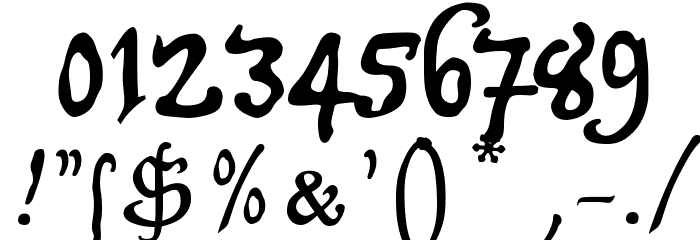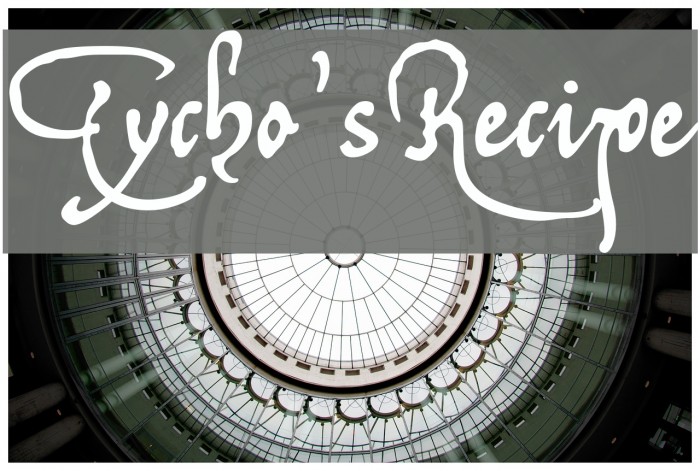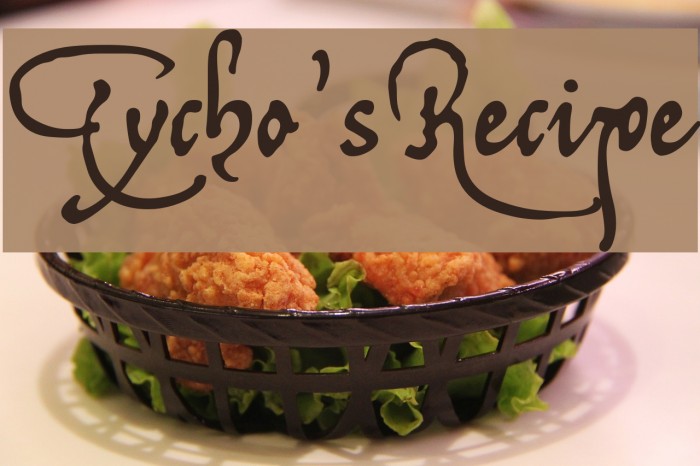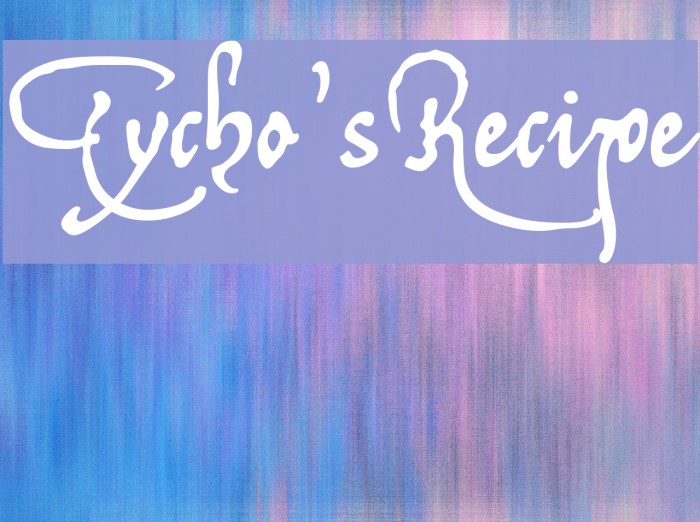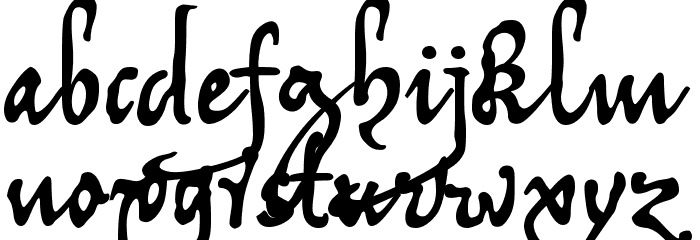
Tycho'sRecipe Font
Tycho'sRecipe Description
This font features an ornate and decorative style with intricate loops and flourishes. The uppercase letters are highly stylized, with elaborate curves and swashes that give them a unique, artistic flair. The lowercase letters maintain a similar decorative quality, though they are slightly more restrained, allowing for readability while still showcasing the font's distinctive character. The numbers are bold and follow the same decorative theme, making them stand out. Special characters are equally ornate, fitting seamlessly with the overall design. This font is ideal for projects that require a touch of elegance and creativity.
An ornate and decorative font with intricate loops and flourishes from Uncategorized fonts.
- Proposed Projects: Ideal for wedding invitations, greeting cards, branding, and artistic projects requiring a touch of elegance.
- Use Case: Logos, Invitations, Artistic projects